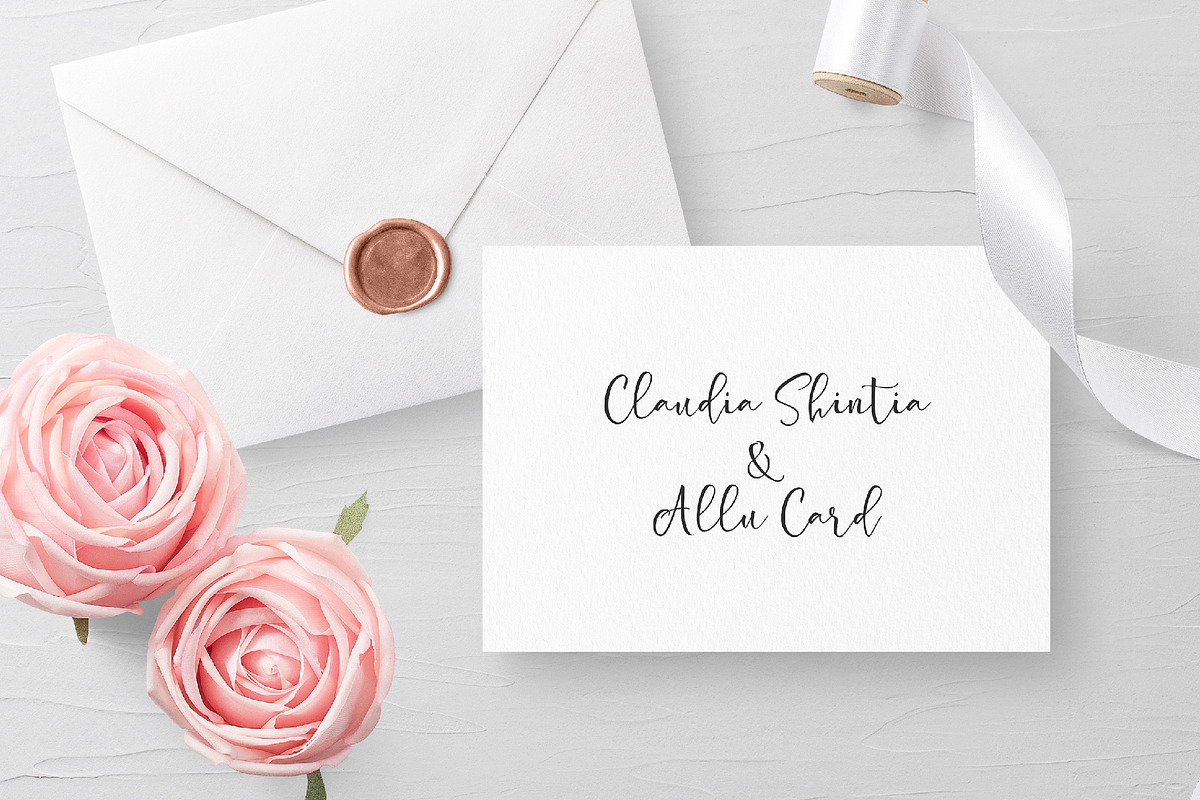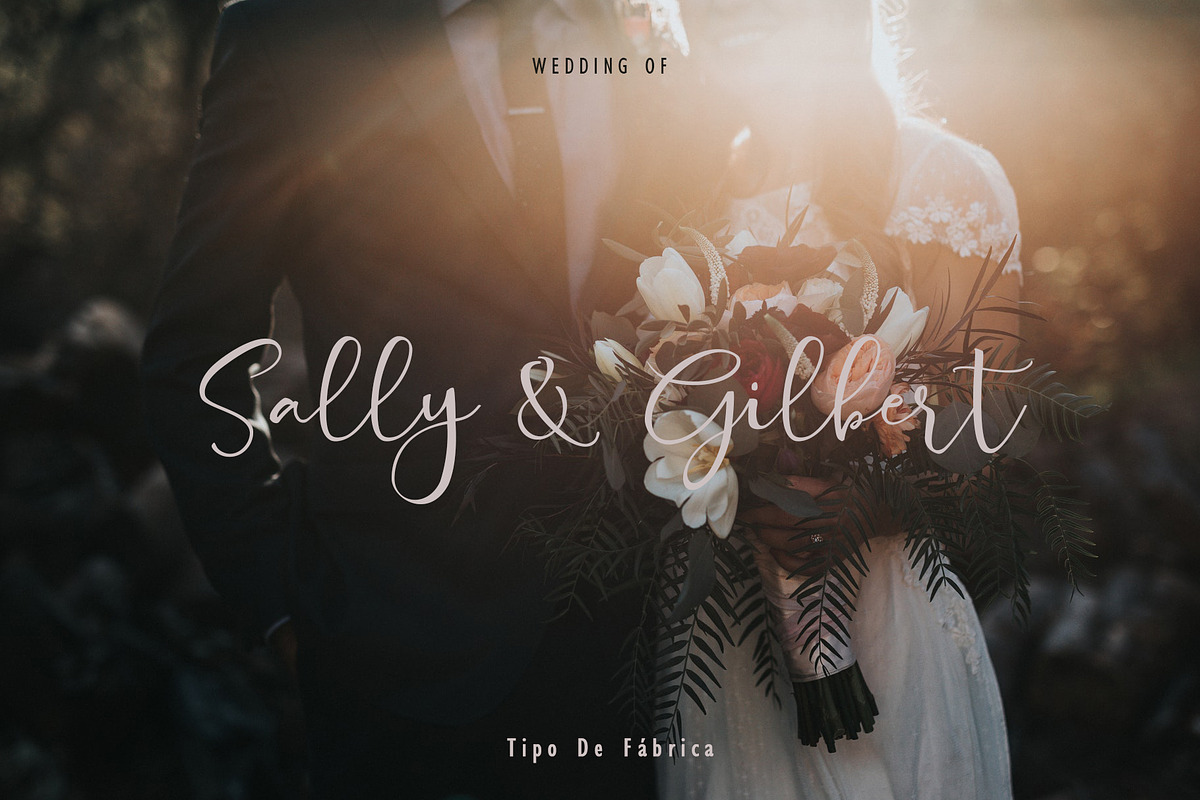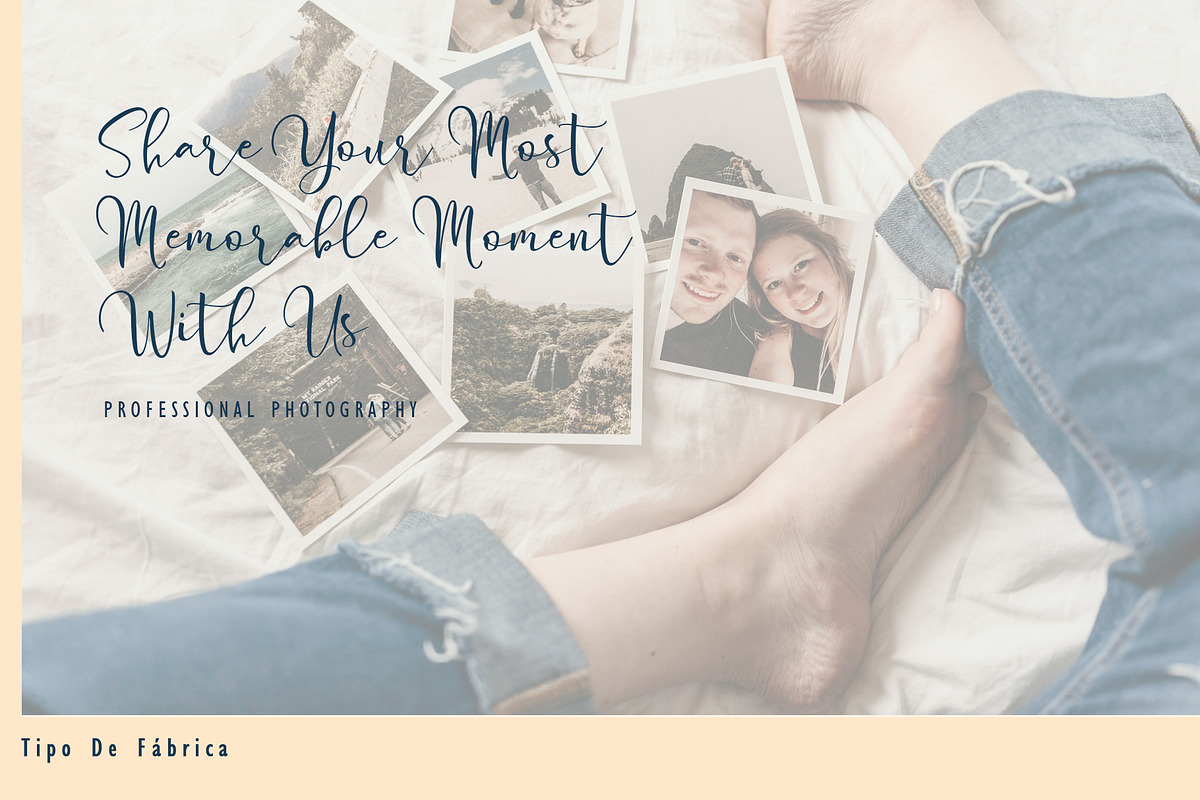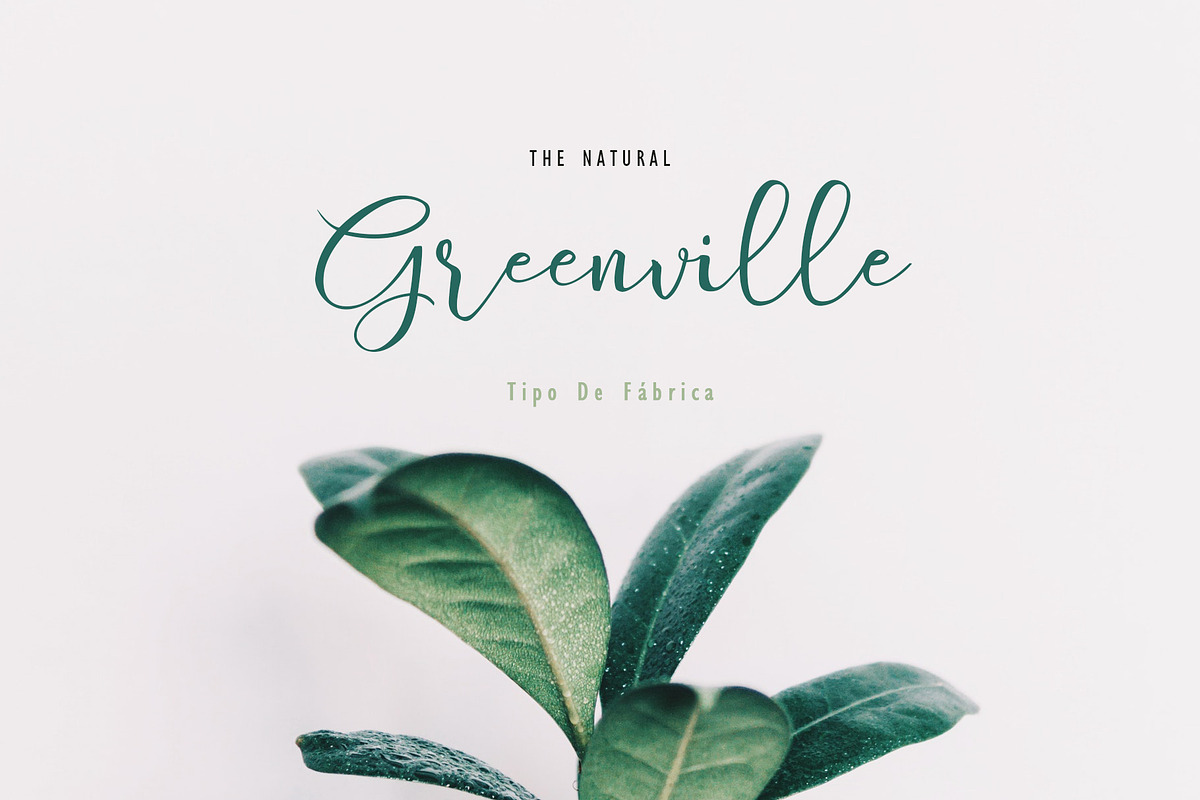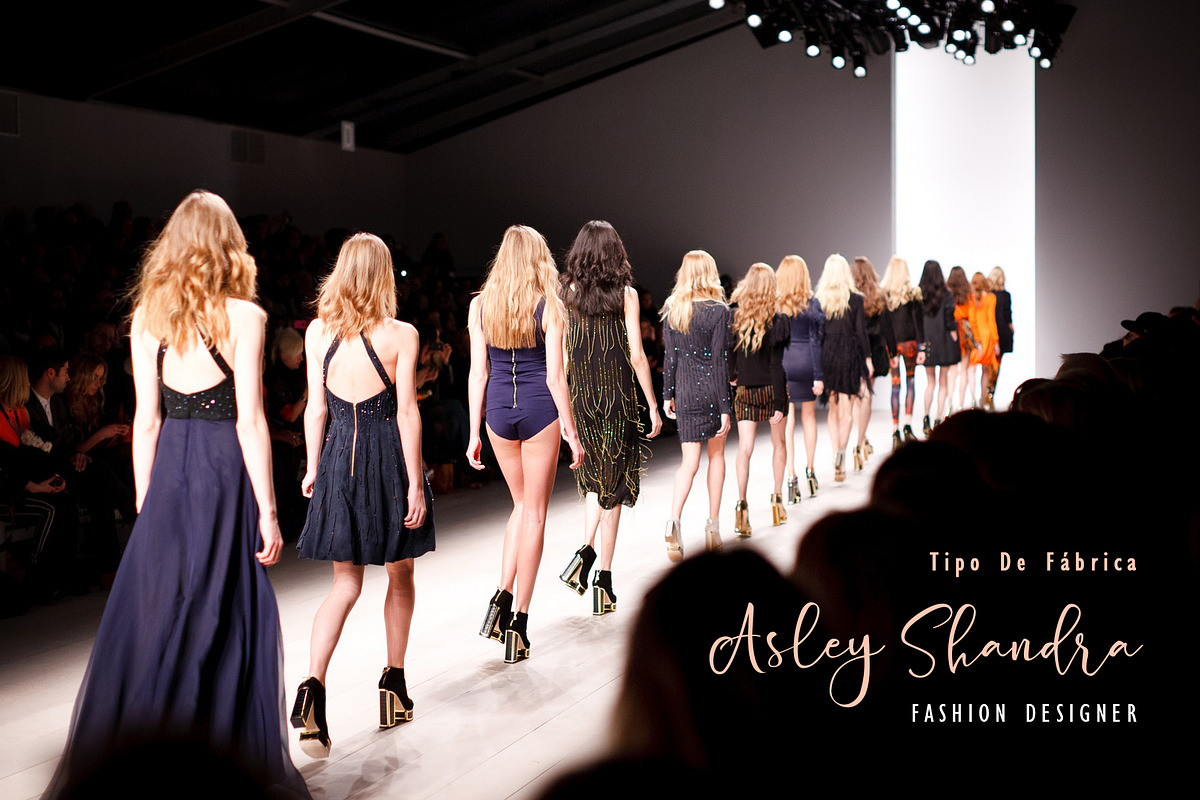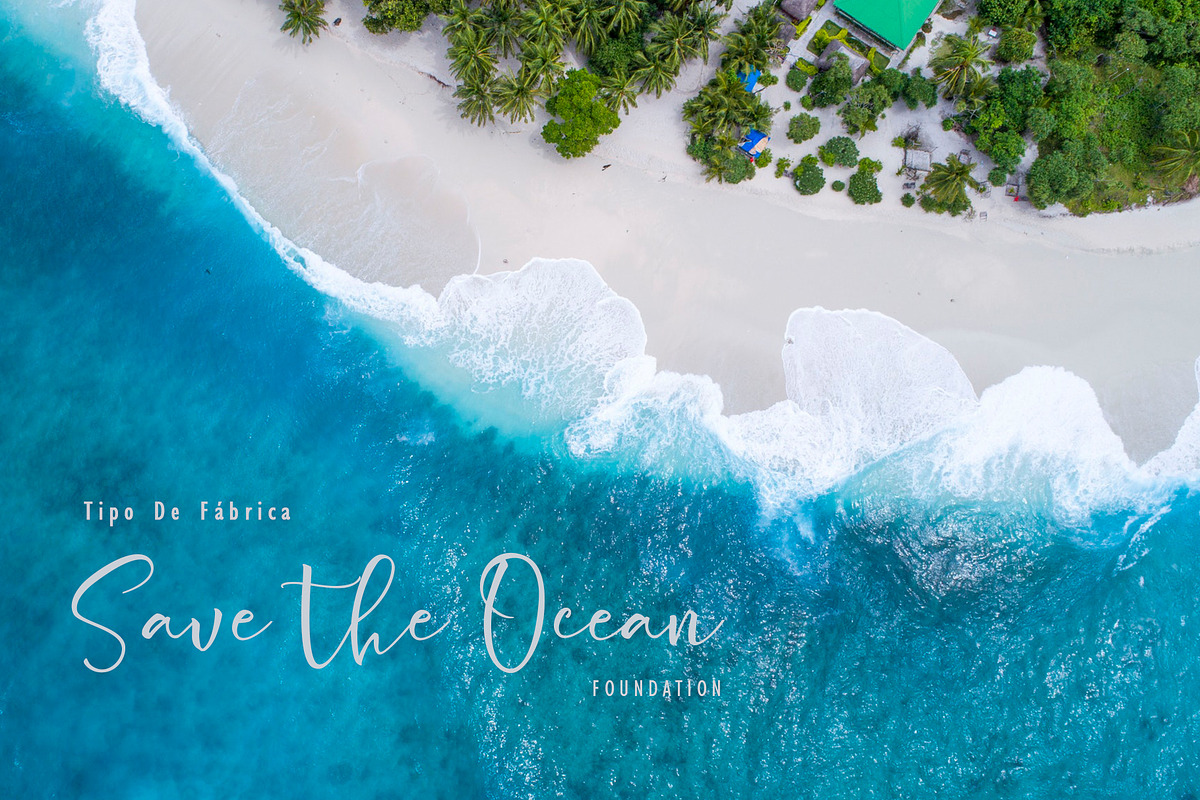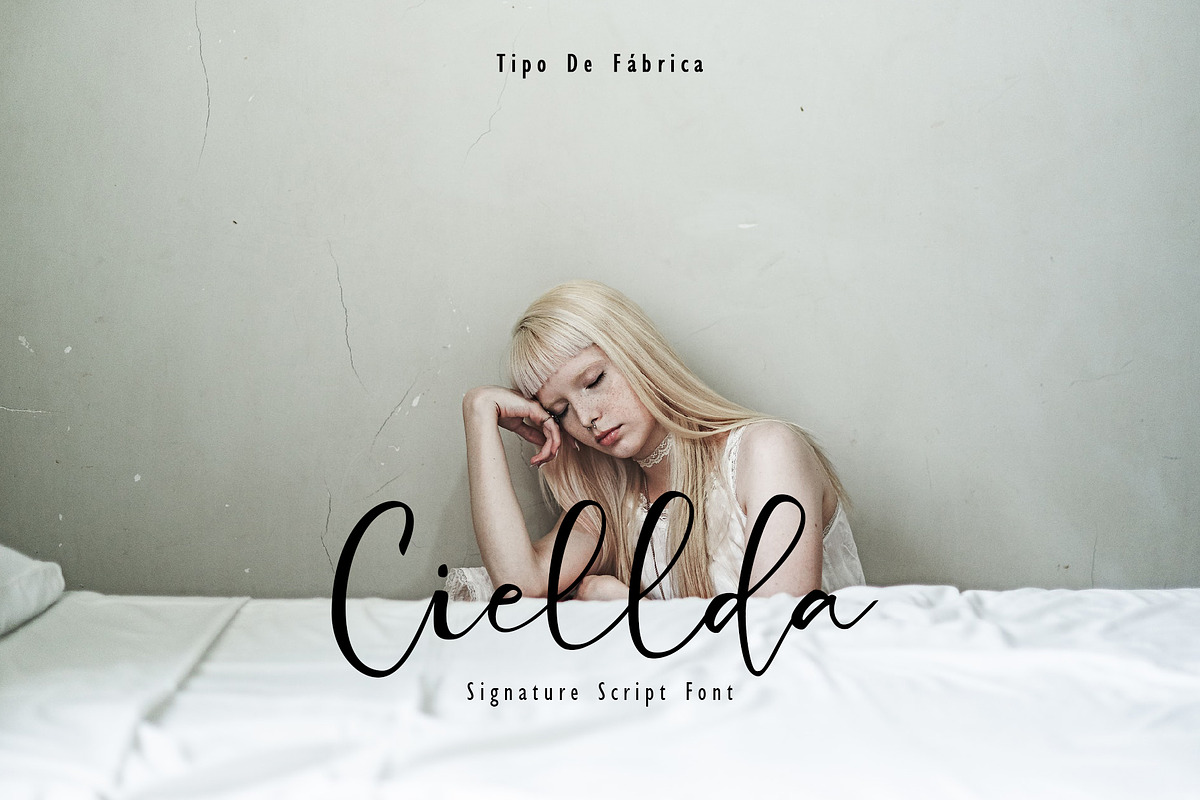
Ciellda || Signature Script Font
Ciellda Signature Script Font is our very first handlesttering font. We finally start font production with our solid team. We proudly present Ciellda to the world. Ciellda is a cute font handlettering thats fit for wedding project, fashion designer, photography service, instagram stories, natural product, coffee shop, branding.
Ciellda Signature Script Font font contains following ligatures:
ab arr bb cc ai ci ee ei ff fi gg gj gi gr hi hh ii ij dg dj dd at ath att and it jj ji et ass kk ll li lli ell mm nn oo oi ot pp rr ss tt uu ui ut vi yy iz zz xx Cr Cz Ci Gi
Ciellda Signature Script Font also includes full set of uppercase and lowercase letters, multilingual symbols, numerals, punctuation.
Why Ciellda || Signature Script Font is worth a look